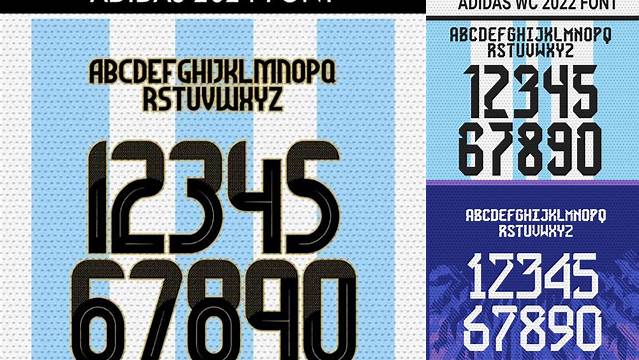
Adidas Jersey Font 2026: Free Download Guide
Hey guys! Are you looking to get your hands on the Adidas jersey font for 2026? Whether you're designing custom jerseys, creating digital art, or just a fan of the iconic Adidas style, finding the right font can make all the difference. This guide will walk you through everything you need to know about the Adidas jersey font, where to find it, and how to use it, all while keeping it free and legal!
1. Understanding the Adidas Jersey Font
The Adidas jersey font isn't just any typeface; it's a key element of the brand's visual identity. The font used on Adidas jerseys is carefully selected to convey a sense of athleticism, modernity, and style. Understanding the nuances of this font will help you appreciate its design and ensure you use it appropriately. The font often features clean lines, a bold appearance, and sometimes unique geometric shapes that align with Adidas's brand aesthetics. This font is not only visually appealing but also highly legible, ensuring that player names and numbers are easily readable on the field. Keep in mind that Adidas often updates or slightly modifies its jersey fonts to stay current with design trends, so it’s essential to find the specific version you’re looking for. Knowing the history and evolution of the font can provide context and enhance your appreciation for its design. It also helps in identifying the correct font for specific jersey designs or years. The typeface is more than just letters and numbers; it embodies the spirit of sports and athletic performance.
3. Where to Find Legal Adidas Inspired Fonts
Finding a free and legal Adidas-inspired font requires some digging, but it's definitely possible. Start by exploring reputable font websites that offer free font options with clear licensing terms. Sites like Google Fonts, Font Squirrel, and DaFont often have a selection of fonts that mimic the athletic, modern style of Adidas. Look for fonts that feature bold, sans-serif designs with clean lines. These types of fonts are often a good match for the Adidas aesthetic. Be sure to carefully read the licensing information for each font you consider. Ensure that the license allows for your intended use, whether it's personal or commercial. Another option is to search for open-source fonts, which are typically free to use for any purpose. However, always double-check the license to be absolutely sure. If you're willing to spend a little money, consider purchasing a commercial font that closely resembles the Adidas font. This ensures you have the legal right to use it for any project and supports the font designer. Remember, it's better to be safe than sorry when it comes to font licensing. Always do your due diligence to avoid potential legal issues.
4. Identifying the Adidas Jersey Font 2026
Identifying the specific Adidas jersey font for 2026 can be a bit of a challenge, as Adidas often releases new or slightly modified fonts each year. The best way to identify the font is to look at official Adidas merchandise or promotional materials for the 2026 season. Check the Adidas website, official team stores, and sports retailers that carry Adidas products. Pay close attention to the font used on player jerseys, training gear, and other branded items. Compare the font to online font databases and identification tools. Websites like WhatTheFont and Identifont allow you to upload an image of the font and will suggest possible matches. Look for distinctive characteristics of the font, such as the shape of specific letters or numbers. Adidas often uses fonts with unique geometric designs or angled cuts. Once you've identified a potential match, research the font's history and licensing information to ensure it's appropriate for your use. Keep in mind that Adidas may use different fonts for different sports or product lines, so be specific in your search. If you're still unsure, consider reaching out to Adidas directly or consulting with a graphic designer who specializes in sports branding. They may be able to provide additional insights or help you find a close alternative. Staying up-to-date with Adidas's latest releases and design trends will also make it easier to identify their fonts in the future.
5. Free Font Resources for Adidas-Inspired Designs
Finding free font resources for Adidas-inspired designs can be a goldmine if you know where to look. Google Fonts is an excellent starting point, offering a wide range of free, open-source fonts that can be used for both personal and commercial projects. Look for sans-serif fonts with a modern, athletic feel. Fonts like Roboto, Montserrat, and Open Sans are great alternatives. Font Squirrel is another fantastic resource for free fonts. They carefully curate their selection and ensure that all fonts are available for commercial use. This is a huge advantage, as you don't have to worry about licensing restrictions. DaFont is a popular website with a massive collection of free fonts. However, it's essential to check the license for each font, as some are only free for personal use. Look for fonts that mimic the bold, clean lines of the Adidas font. Creative Market offers a selection of free goods every week, including fonts. Keep an eye on their website for potential Adidas-inspired fonts. Behance and Dribbble are great platforms for discovering free fonts shared by designers. Search for keywords like